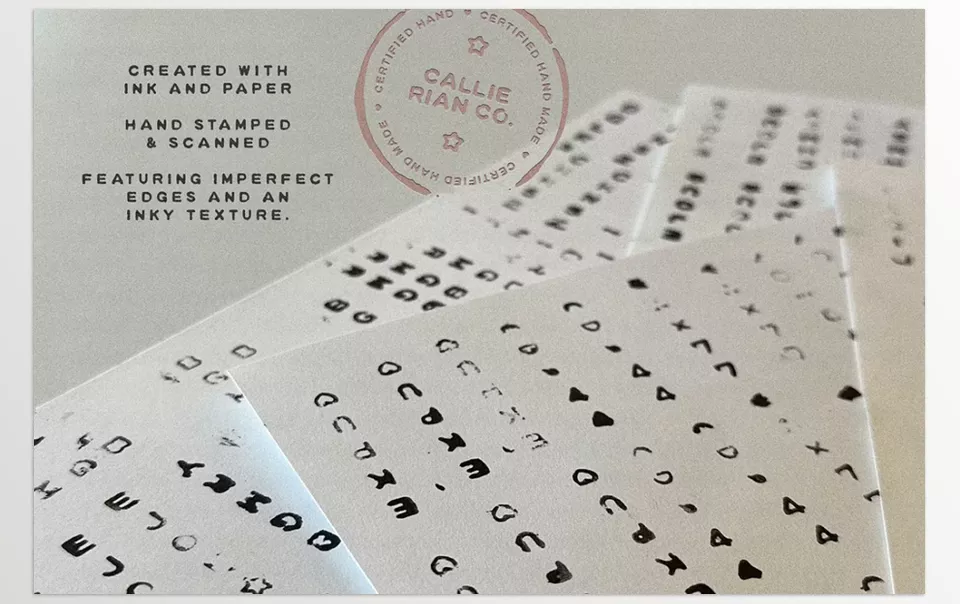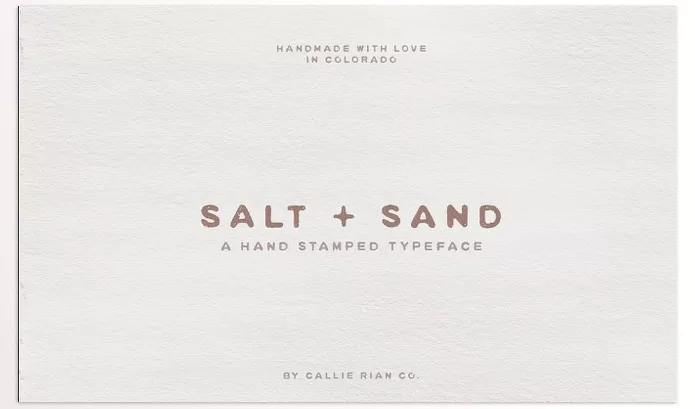
Salt And Sand Stamped Typeface stands out thanks to its irregular glyphs, setting it apart for anything from creative book covers and logos to wedding invitations and packaging. It is perfect for anyone looking to add a personal touch to their designs by incorporating an organic look.
Callie Rian & Co. – Salt And Sand Stamped Typeface Features
- Authentic Hand-Stamped Texture: Every character is hand-stamped and scanned, which gives them a distinctive raw feel.
- Multiple Weights: Comes with both the regular Salt + Sand and a slanted version, providing versatility in design.
- Complete Character Set: Compatible with different kinds of works, projects and designs since it includes all the English letters, numbers, symbols, and punctuation, which makes it a complete character set.
- Compatible Fonts: Best suited for branding and invitations and blends beautifully with other scripts to enhance their appeal.
- Rustic Designs: Best suited for books, packaging, and logos, which require handcrafted appeal and texture. This provides great rustic designs.
Preview Salt And Sand Stamped Typeface
Image 1: The textured design brings an earthy, handcrafted feel, perfect for rustic or vintage-themed projects.
Image 2: Add character to your branding or invitations with a font that radiates warmth and authenticity.